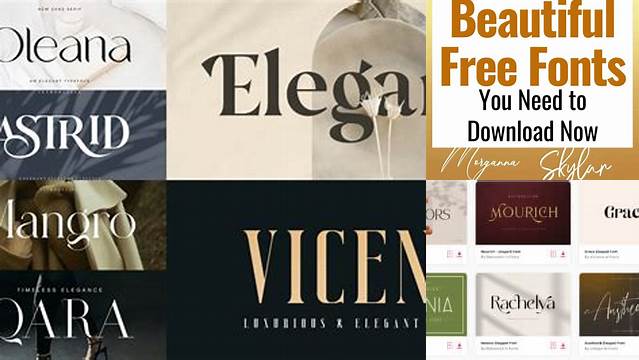
Thin Elegant Fonts: Free Downloads For You!
Hey guys! Are you on the hunt for some thin elegant fonts to spice up your designs? You've come to the right place! Finding the perfect font can be a game-changer for your projects, whether you're working on branding, websites, invitations, or anything else. A thin elegant font can add a touch of sophistication and class, making your work stand out. Let's dive into the world of thin elegant fonts and explore where you can snag them for free. We'll cover everything from the best places to download them to how to use them effectively. So, buckle up and let's get started!
1. What Makes a Font Thin and Elegant?
What exactly do we mean by a thin elegant font? Well, it’s all about the delicate balance between thin strokes and graceful curves. These fonts often have a minimalist feel, making them perfect for designs that need a touch of sophistication without being overly flashy. Think about fonts like Helvetica Light, Lato Light, or even a beautifully crafted script font with thin lines. These fonts exude elegance and can make a big difference in how your message is perceived. When you're choosing a thin elegant font, consider the overall mood you want to create. Is it formal? Modern? Perhaps a little romantic? The right font can help you nail that feeling and connect with your audience on a deeper level. So, keep in mind that the magic of a thin elegant font lies in its subtlety and grace, making it a fantastic choice for projects where less is definitely more.
4. Best Thin Sans-Serif Fonts for a Modern Look
If you're going for a sleek, modern vibe, thin sans-serif fonts are your best friend. These fonts ditch the little decorative strokes (serifs) that you see in fonts like Times New Roman, opting for a cleaner, more minimalist appearance. Think of fonts like Lato Light, Open Sans Light, or Roboto Thin. These thin elegant fonts are super versatile and work well in a variety of designs, from website headers to body text. They’re also great for logos and branding materials where you want to convey a sense of simplicity and sophistication. When choosing a thin sans-serif, pay attention to the spacing between letters (kerning) and the overall readability. A font might look beautiful on its own, but if it’s hard to read in a paragraph of text, it’s not going to be very effective. So, experiment with different thin sans-serif fonts and see which ones best fit your project's needs. You'll be amazed at how much a font can transform your design!
5. Elegant Thin Serif Fonts for a Classic Feel
On the flip side, if you’re aiming for a more classic or traditional feel, thin elegant serif fonts are the way to go. Serifs are those little feet or strokes at the end of the letters, and they can add a touch of formality and sophistication to your design. Think of fonts like Playfair Display, EB Garamond, or Lora. These thin serif fonts are perfect for projects where you want to evoke a sense of history, luxury, or refinement. They’re often used in editorial design, invitations, and branding for high-end products. A well-chosen thin elegant serif font can make your text look polished and professional. Just like with sans-serif fonts, readability is key. Make sure the font is legible at different sizes and in different contexts. A thin serif font might look stunning in a headline, but it might not work as well for smaller body text. So, consider your use case and choose wisely!
6. Script Fonts: Adding a Touch of Elegance
For a truly elegant touch, consider using thin elegant script fonts. These fonts mimic the look of handwriting and can add a personal and sophisticated feel to your designs. Think of fonts like Great Vibes, Allura, or Alex Brush. Thin elegant script fonts are fantastic for invitations, wedding designs, logos, and anything else where you want to convey a sense of creativity and artistry. However, script fonts can be a bit trickier to use than serif or sans-serif fonts. They tend to be less readable in large blocks of text, so it’s best to use them sparingly. A thin elegant script font can look stunning for a headline or a short quote, but it might not be the best choice for body text. Also, be mindful of the overall tone of the script font. Some script fonts are very formal and traditional, while others are more playful and modern. Choose a thin elegant script font that aligns with the overall message and aesthetic of your project.
7. Pairing Thin Fonts with Bold Fonts
One of the best ways to make thin elegant fonts really shine is to pair them with bolder fonts. This creates a visual contrast that can make your designs more dynamic and interesting. Think about using a thin sans-serif font for your body text and a bold sans-serif font for your headings, or vice versa. You could also pair a thin elegant serif font with a bold sans-serif font for a more modern look. The key is to create a balance between the thin and the bold elements. You want the thin elegant font to stand out without getting lost, and the bold font should complement it without overpowering it. Experiment with different combinations and see what works best for your project. Font pairing can be a bit of an art, but with a little practice, you can create some stunning visual effects. So, don't be afraid to mix and match – you might just discover your new favorite font pairing!
8. Using Thin Fonts for Logos and Branding
Thin elegant fonts are a popular choice for logos and branding because they can convey a sense of sophistication, modernity, and class. A well-chosen thin elegant font can make your brand look polished and professional. When using thin elegant fonts for logos, it’s important to consider readability and scalability. Your logo needs to look good not just on your website and business cards, but also on larger formats like billboards and signage. A font that looks beautiful in a large headline might become illegible when it’s scaled down. It’s also crucial to ensure that the thin elegant font you choose aligns with your brand’s personality and values. A minimalist brand might benefit from a thin sans-serif font, while a more luxurious brand might opt for a thin elegant serif or script font. Think about the overall message you want to send and choose a thin elegant font that helps you communicate that effectively. So, take your time, experiment with different options, and find a font that truly represents your brand.
9. Thin Fonts for Website Design
30. Creating Custom Thin Elegant Fonts
Creating your own custom thin elegant fonts is an exciting way to add a unique touch to your designs. While it requires skill and time, the result is a font that perfectly reflects your personal style or brand identity. Start by sketching out letterforms, paying attention to the delicate strokes and elegant curves that characterize thin elegant fonts. Use font design software like FontLab or Glyphs to digitize your sketches. These tools allow you to refine your letterforms, adjust spacing, and add kerning pairs. Consider the overall aesthetic you want to achieve. Will your thin elegant font be serif or sans-serif? Script or geometric? Experiment with different styles and weights to find the perfect balance. Test your thin elegant font in various contexts to ensure readability and visual appeal. Creating a custom thin elegant font is a labor of love, but the result is a unique and versatile asset for your design toolkit.